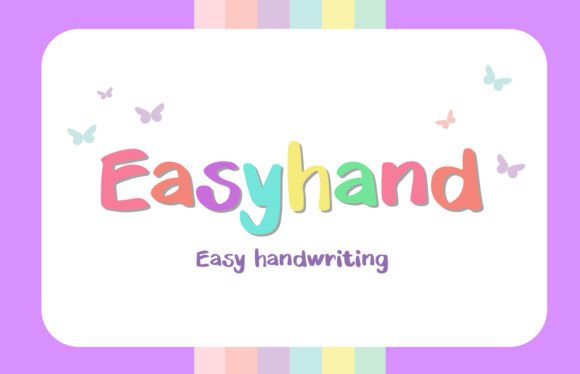
Introducing Easyhand Font: The Ultimate Choice for Playful and Colorful Designs
Are you a designer, crafter, or DIY enthusiast looking for a font that can add a touch of playfulness and whimsy to your artwork? Look no further than Easyhand Font! This fun and easy handwritten font is perfect for creating playful and colorful designs that are sure to capture the attention of your audience.
What is Easyhand Font?
Easyhand Font is a unique and charming handwritten font that is designed to bring a sense of fun and creativity to your designs. With its smooth and flowing lines, this font is perfect for creating a wide range of artwork, from arts and crafts for kids to invitations, t-shirts, social media graphics, and decorations.
Features of Easyhand Font
- Handwritten style: Easyhand Font has a beautiful handwritten style that is perfect for adding a personal touch to your designs.
- Playful and fun: This font is designed to be playful and fun, making it perfect for designs that require a lighthearted and carefree feel.
- Easy to read: Despite its playful style, Easyhand Font is easy to read and understand, making it perfect for use in a wide range of designs.
- Versatile: This font can be used for a wide range of designs, from digital graphics to print materials.
Uses of Easyhand Font
Easyhand Font is a versatile font that can be used for a wide range of designs, including:
- Arts and crafts for kids: This font is perfect for creating fun and colorful arts and crafts projects for kids.
- Invitations: Use Easyhand Font to create playful and eye-catching invitations for parties, events, and more.
- T-shirts and apparel: This font is perfect for creating fun and quirky designs for t-shirts, hoodies, and other apparel.
- Social media graphics: Use Easyhand Font to create eye-catching social media graphics that are sure to grab the attention of your followers.
- Decorations: This font can be used to create fun and colorful decorations for parties, events, and more.
Benefits of Using Easyhand Font
There are many benefits to using Easyhand Font in your designs, including:
- Adds a personal touch: This font adds a personal touch to your designs, making them feel more unique and special.
- Creates a playful feel: Easyhand Font is perfect for creating a playful and fun feel in your designs.
- Versatile: Easyhand Font can be used for a wide range of designs, making it a great addition to your font library.
Tips for Using Easyhand Font
Here are a few tips for using Easyhand Font in your designs:
- Use it for headings: Easyhand Font is perfect for use in headings and titles, where its playful style can really shine.
- Pair it with other fonts: This font pairs well with other fonts, so feel free to experiment with different combinations.
- Experiment with colors: Easyhand Font looks great in a wide range of colors, so don’t be afraid to experiment and find the perfect color for your design.
Easyhand Font is a fun and easy handwritten font that is perfect for creating playful and colorful designs. With its smooth and flowing lines, this font is sure to add a touch of whimsy and creativity to your artwork. Whether you’re a designer, crafter, or DIY enthusiast, Easyhand Font is a great choice for any project that requires a playful and fun feel. So why wait? Download Easyhand Font today and start creating your own unique and eye-catching designs!